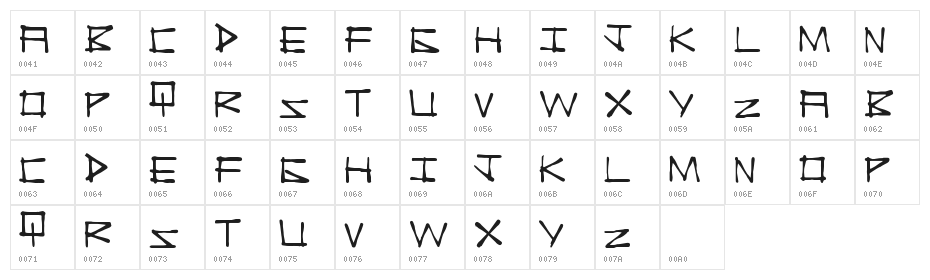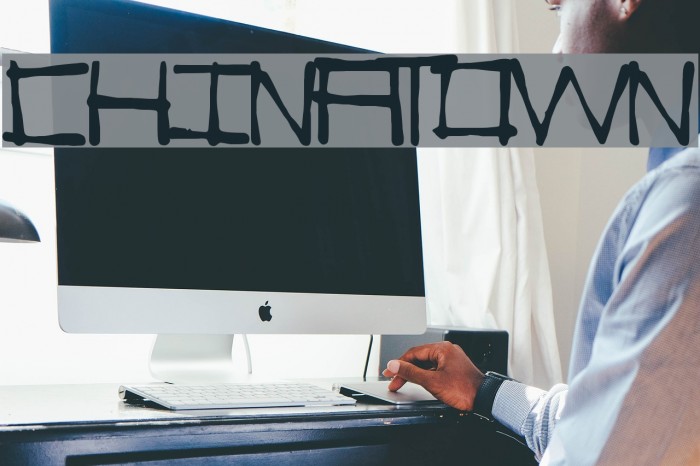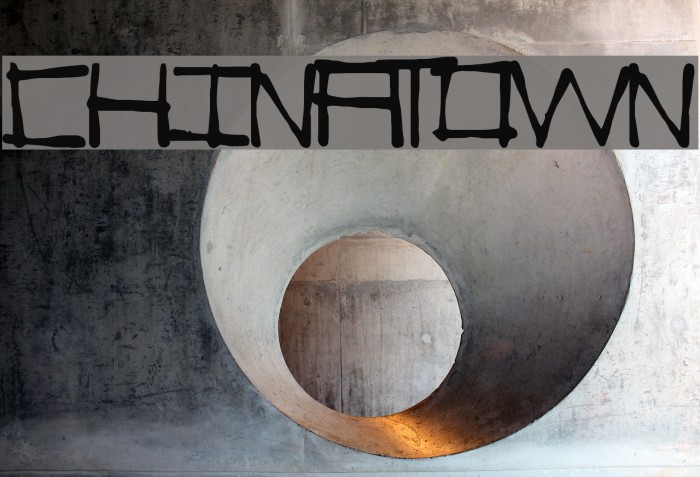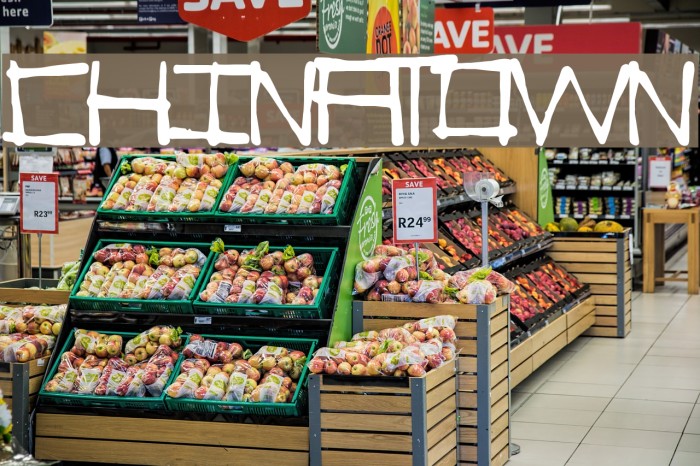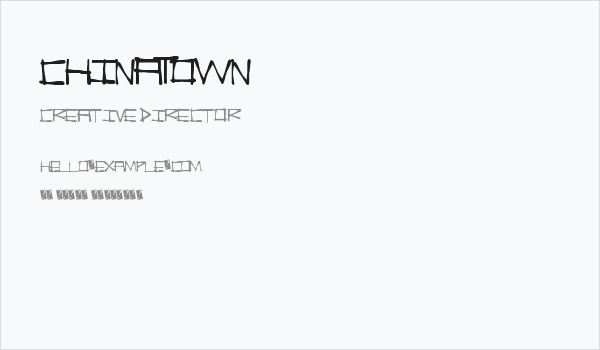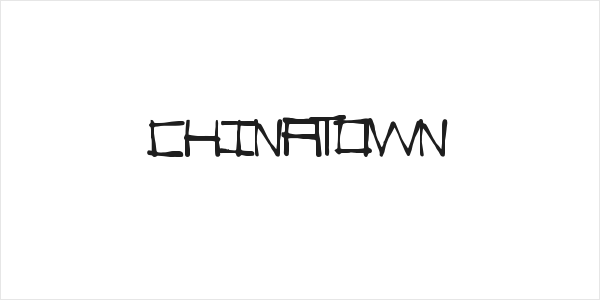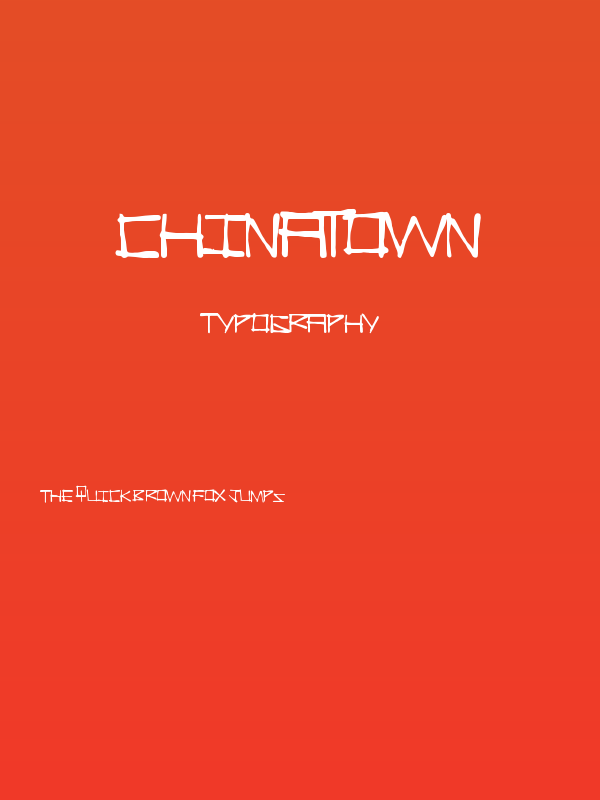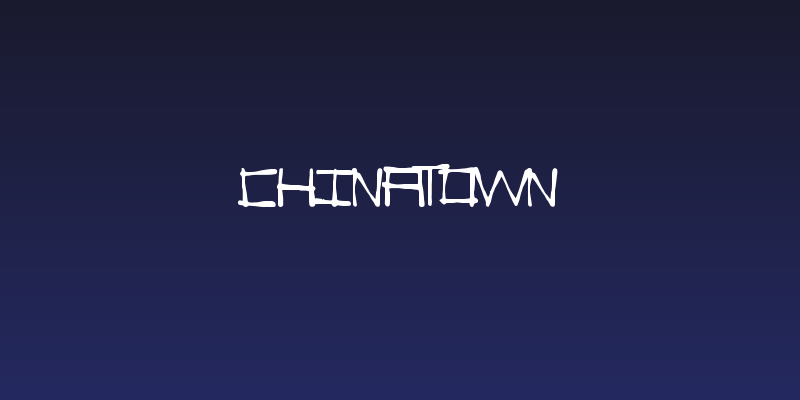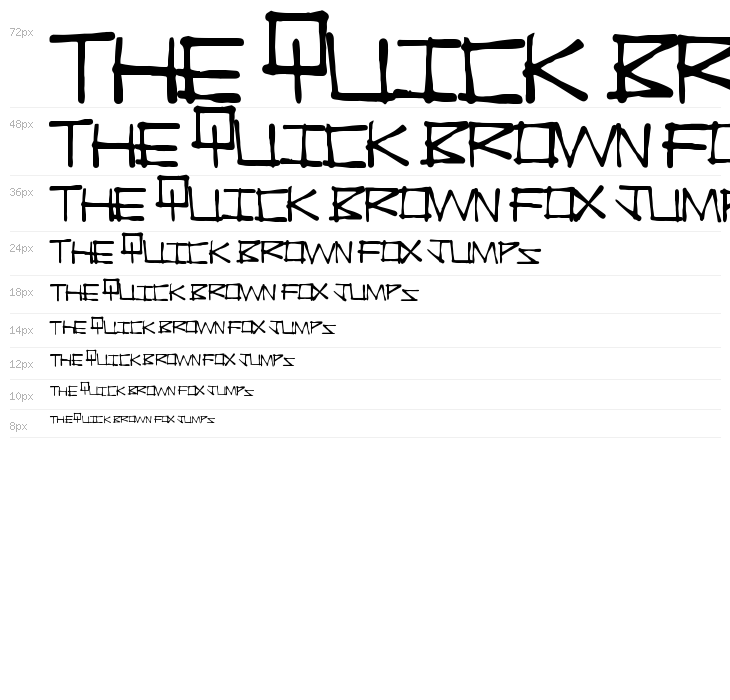
ChinaTown Font
ChinaTown Description
This font features a unique, hand-drawn style that mimics the aesthetic of traditional East Asian calligraphy. The characters are bold and slightly irregular, giving them a dynamic and artistic appearance. The strokes are thick and uneven, adding to the organic feel of the font. The uppercase and lowercase letters maintain a consistent style, with angular lines and sharp edges. The numbers and special characters follow the same design principles, ensuring a cohesive look across all glyphs. This font's distinctive style makes it stand out, perfect for projects that require an exotic or cultural touch.
| Proposed Projects | Ideal for cultural event posters, restaurant menus, art projects, and themed branding. |